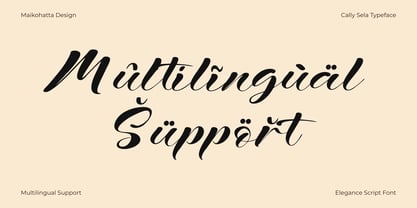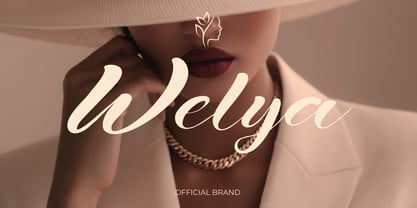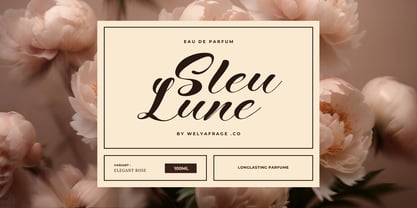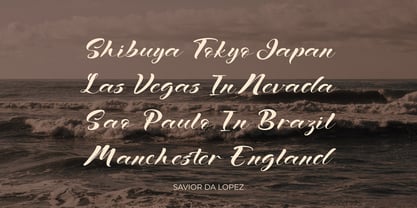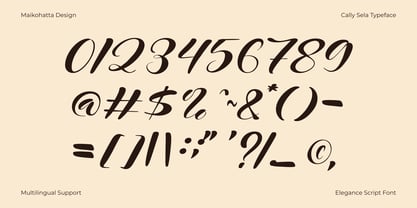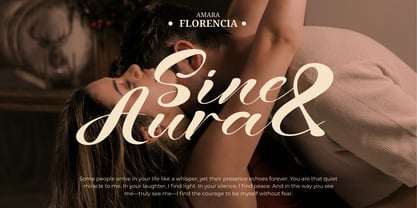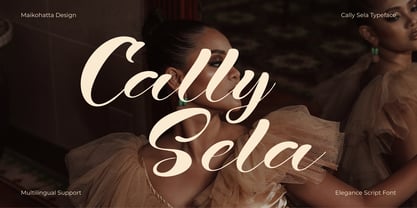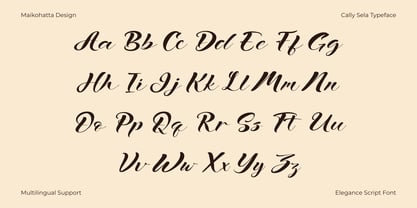
Cally Seyla
by Maikohatta
The Cally Seyla Font Family was designed by Gilang Ternadho and published by Maikohatta. Cally Seyla contains 1 styles. More about this family
Introducing our new product Cally Sela - Modern Calligraphy Font Cally Sela is an elegant and romantic script typeface, designed to bring beauty and femininity to your designs. It features smooth, flowing strokes, graceful curves, and stylish strokes. With its handwritten charm and modern sophistication, Cally Sela delivers a timeless aesthetic that feels both soft and confident. This font supports multilingual characters.
Designers: Gilang Ternadho
Foundry: Maikohatta